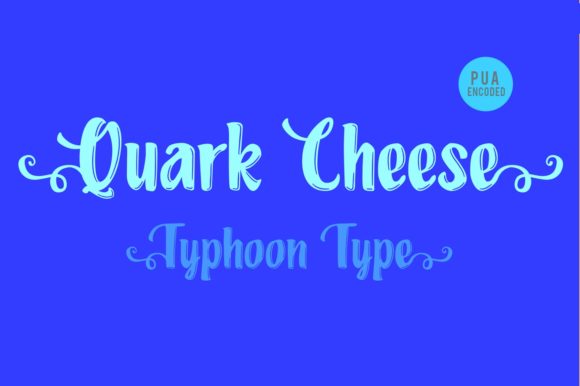
Quark Cheese Font
About Quark Cheese Font
Quark Cheese is an elegant handwritten font, carefully handcrafted to become a true favorite. Its casual charm makes it appear wonderfully down-to-earth, readable and, ultimately, incredibly versatile. This font will look outstanding in any context, whether it’s being used on busy backgrounds or as a standalone headline!